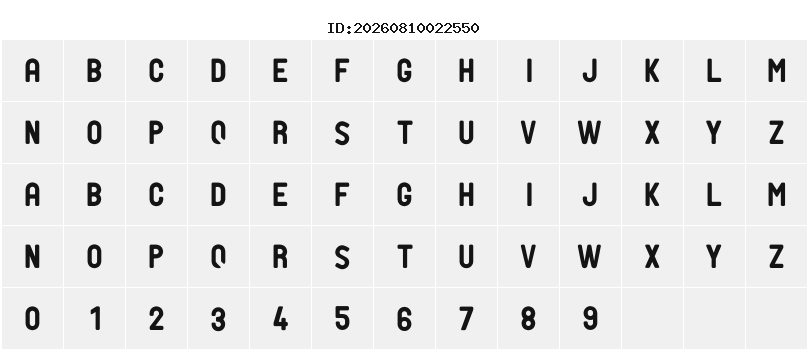
About PTF NORDIC Rnd.ttf
PTF NORDIC Rnd.ttf is a modern, elegant sans-serif font designed for ultimate readability and visual harmony. Perfect for branding, headlines, web design, and print materials.